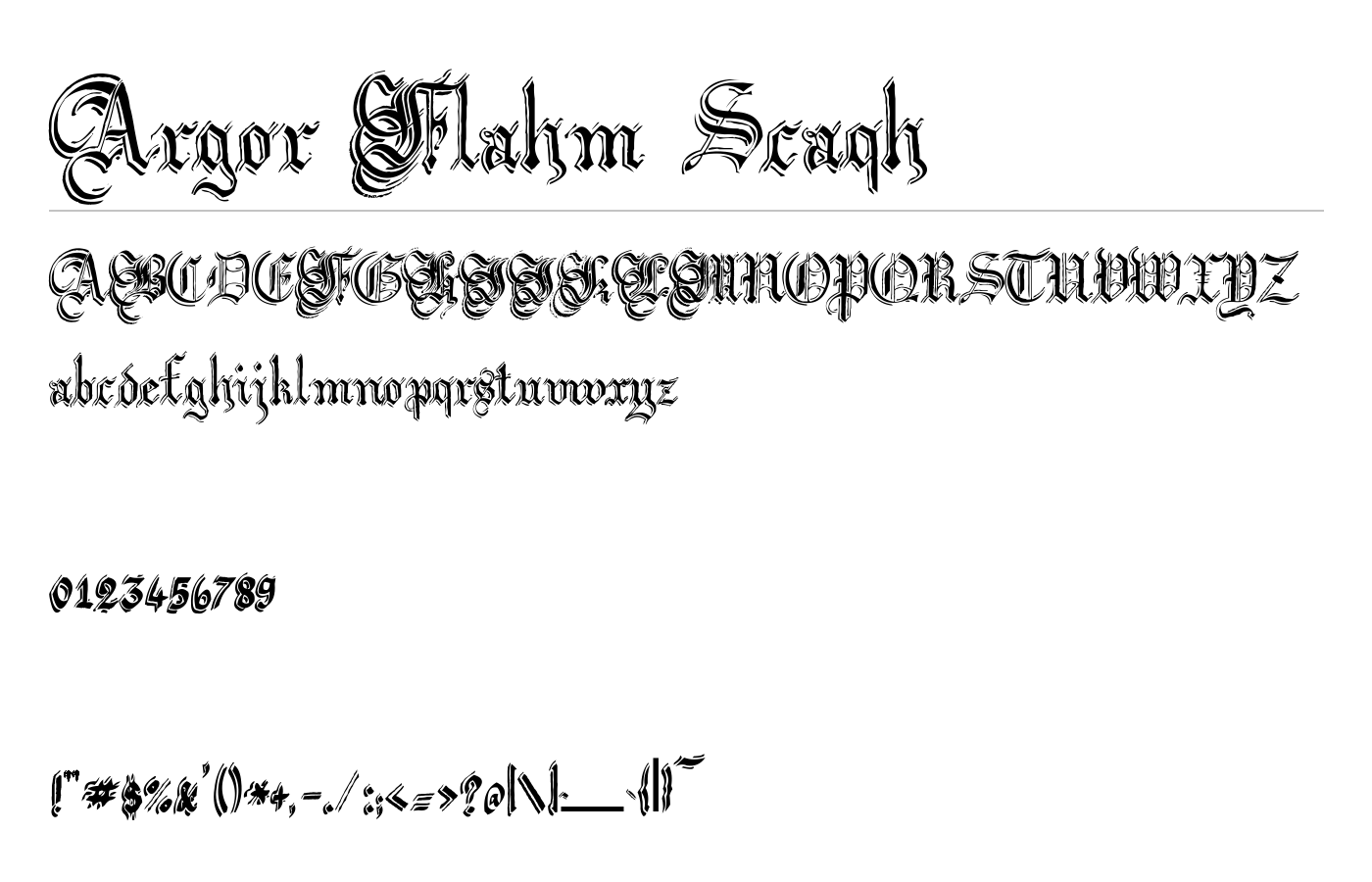
Argor Flahm Scaqh is a decorative blackletter typeface that features elaborate, sharp strokes with high contrast and intricate detailing reminiscent of traditional Gothic calligraphy. Its bold and ornamental style gives a strong historical and vintage impression, making it ideal for use in branding with a medieval or classical theme, such as logos, posters, or editorial designs that want to convey a sense of tradition and drama. This font’s distinctive, artsy character works best for headlines or display purposes rather than body text due to its complexity.
Argor Flahm Scaqh Font
About Argor Flahm Scaqh Font